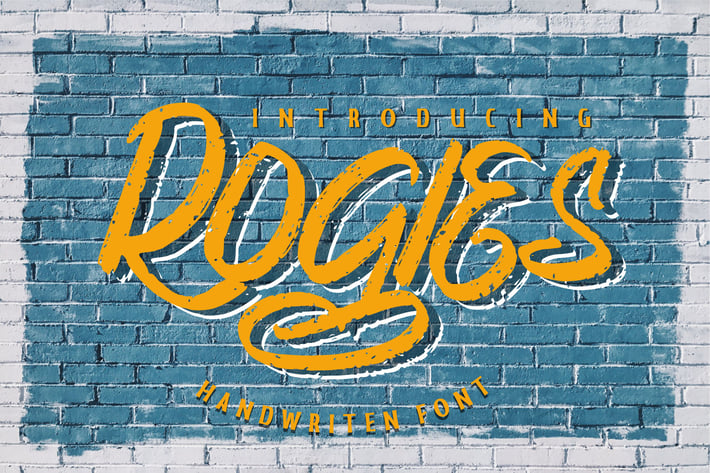
Rogies | Handwriten Font
Rogies | Handwriten Font with a calligraphy style, So beautiful on invitation like greeting cards, branding materials, business cards, quotes, posters, and more!